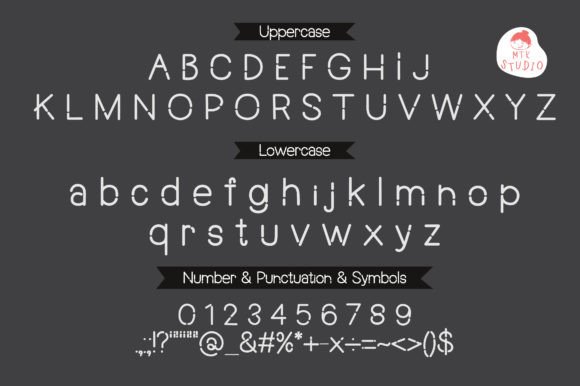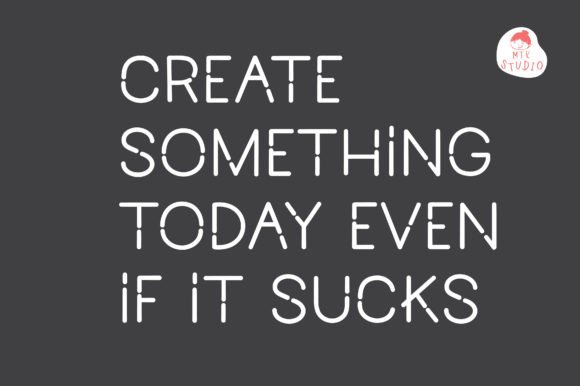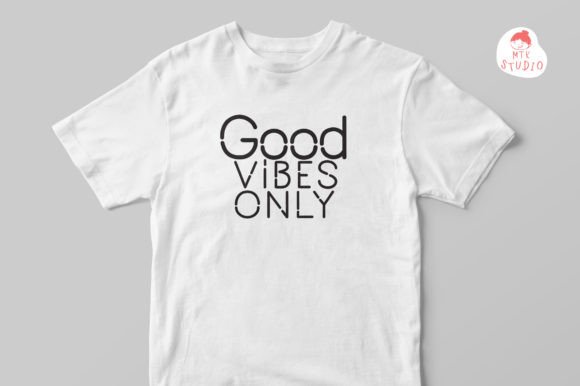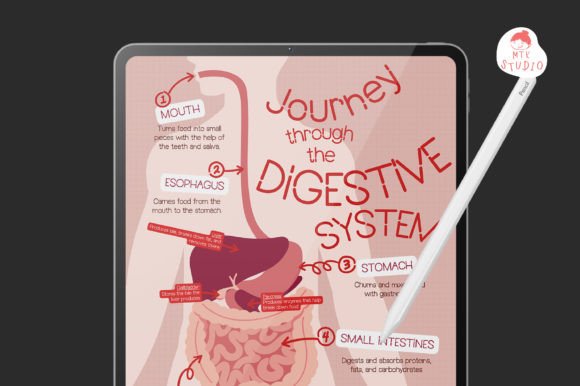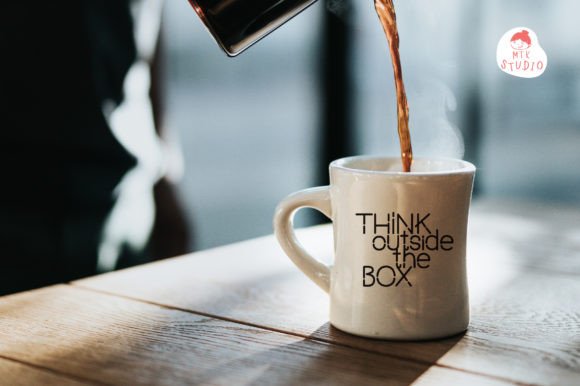
Unleash Your Creativity with BlackSkeleton Font: A Fun and Unique Sans-Serif Font
Are you tired of using the same old fonts in your creative projects? Do you want to add a touch of personality and whimsy to your designs? Look no further than BlackSkeleton font, a fun and unique sans-serif font that’s sure to take your work to the next level. In this article, we’ll explore the features and benefits of BlackSkeleton font, and show you how to incorporate it into your designs.
What is BlackSkeleton Font?
BlackSkeleton font is a sans-serif font that’s designed to add a touch of playfulness and creativity to your projects. Its unique design features a skeleton-like structure, with bold lines and a quirky aesthetic that’s sure to stand out. Whether you’re working on a graphic design project, crafting a handmade card, or creating digital content, BlackSkeleton font is the perfect choice.
Key Features of BlackSkeleton Font
- Unique Design: BlackSkeleton font features a one-of-a-kind design that’s sure to grab attention. Its skeleton-like structure adds a touch of whimsy and playfulness to any project.
- Sans-Serif: As a sans-serif font, BlackSkeleton is perfect for digital and print projects. Its clean lines and simple aesthetic make it easy to read and versatile.
- Fun and Creative: BlackSkeleton font is designed to add a touch of personality to your projects. Its quirky aesthetic is perfect for crafters, designers, and anyone looking to add some fun to their work.
Benefits of Using BlackSkeleton Font
So why should you choose BlackSkeleton font for your next project? Here are just a few benefits of using this unique font:
- Adds Personality: BlackSkeleton font adds a touch of personality and whimsy to any project. Its unique design is sure to stand out and grab attention.
- Versatile: As a sans-serif font, BlackSkeleton is versatile and easy to use. It can be used for digital and print projects, and is perfect for a wide range of applications.
- Easy to Read: Despite its quirky aesthetic, BlackSkeleton font is easy to read and understand. Its clean lines and simple design make it perfect for body text and headlines.
How to Use BlackSkeleton Font in Your Projects
So how can you incorporate BlackSkeleton font into your creative projects? Here are a few ideas to get you started:
- Graphic Design: Use BlackSkeleton font in your graphic design projects to add a touch of personality and whimsy. It’s perfect for logos, brochures, and other marketing materials.
- Handmade Crafts: Add a personal touch to your handmade crafts with BlackSkeleton font. It’s perfect for card making, scrapbooking, and other paper crafts.
- Digital Content: Use BlackSkeleton font in your digital content to add a touch of fun and creativity. It’s perfect for social media graphics, blog posts, and other online content.
Tips and Tricks for Using BlackSkeleton Font
Here are a few tips and tricks to keep in mind when using BlackSkeleton font:
- Use it Sparingly: While BlackSkeleton font is fun and unique, it can be overwhelming if used too much. Use it sparingly to add a touch of personality to your projects.
- Pair it with Other Fonts: BlackSkeleton font pairs well with other fonts, especially sans-serif fonts. Experiment with different font combinations to find the perfect look for your project.
- Experiment with Colors: BlackSkeleton font looks great in a variety of colors. Experiment with different colors and textures to find the perfect look for your project.
In conclusion, BlackSkeleton font is a fun and unique sans-serif font that’s perfect for adding a touch of personality and whimsy to your creative projects. Its quirky aesthetic and versatile design make it perfect for a wide range of applications, from graphic design to handmade crafts. So why not give it a try and see the results for yourself? Add BlackSkeleton font to your creative projects and enjoy the results!